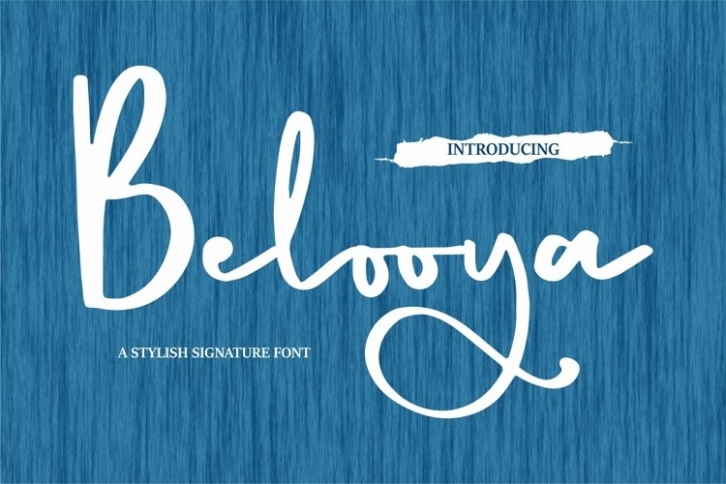
Belooya is a gorgeous font that was realeased on June 12, 2021. The font can be used in many style contexts and design environments. Perfect for invitations, magazines, websites, logos, and more! It was designed by plusstore and the file size is 5.75 MB. Thanks for checking out this font!